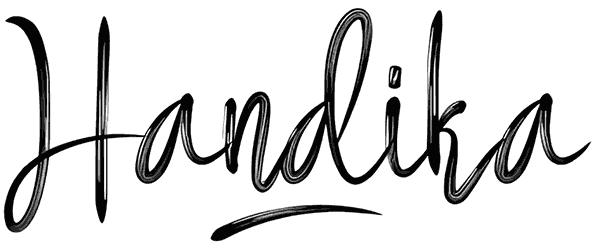
Handika Font
Let your creativity soar in your upcoming project with a modern brush font, Handika. It features a thin, dry texture, which gives off a natural and fresh vibe. It also has the potential to elevate your design, no matter what the concept is.
This font works great for album covers, product packaging, flyers, birthday party invitations, and book covers. So don’t waste your time thinking and picking it up. Cheers!